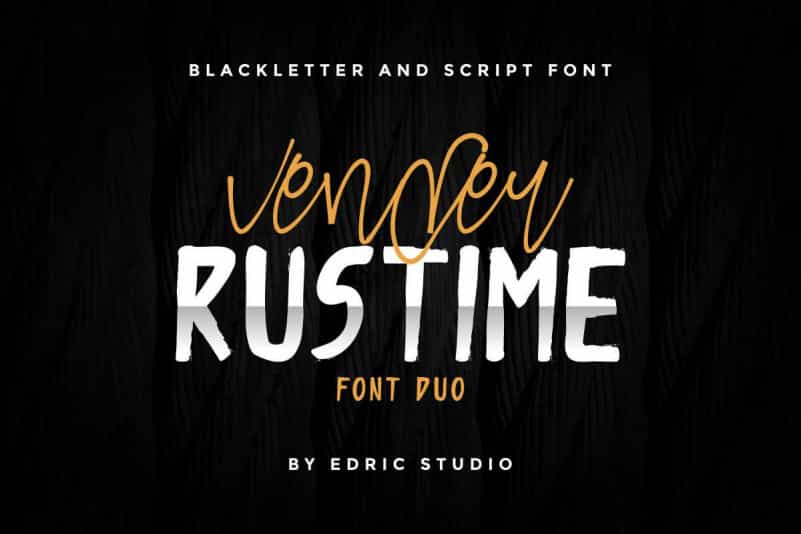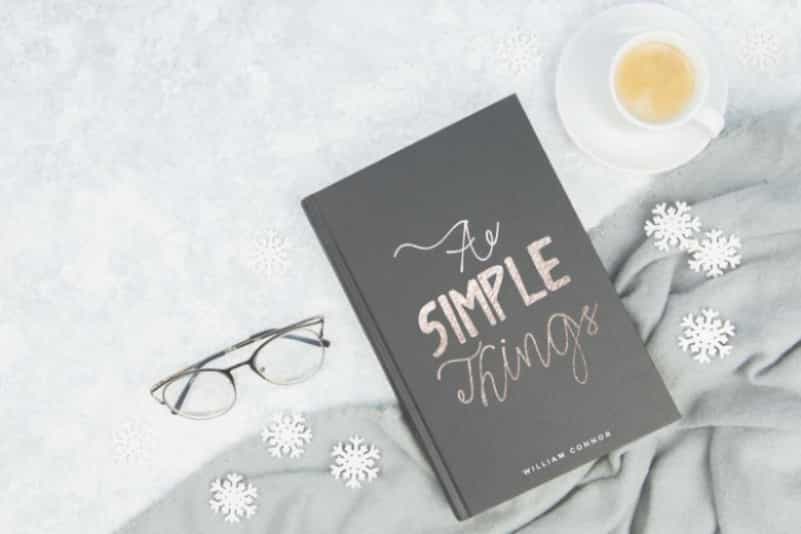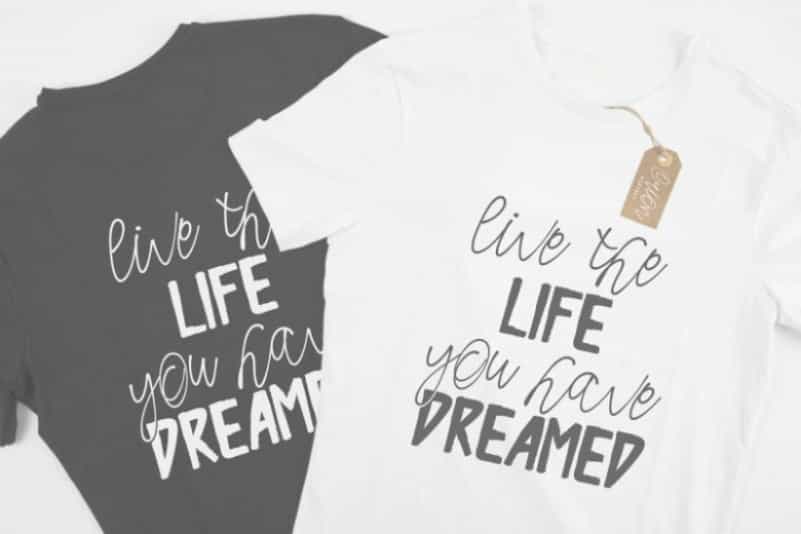
Discover Vender Rustime Font Duo, part of the Handwritten Display collection—a versatile and unique font perfect for adding a personal touch to your projects. Download it for free and enjoy crafting designs with style, from invitations to social media posts. This font is available exclusively for personal use, giving you the freedom to create without limits. Unlock your creativity with Vender Rustime Font Duo today!
Vender Rustime Font Duo has many international languages characters glyphs. This font will suits many projects categories : ( with a license ) the Font, Flyer ,Stationery, Business card, signage, flyers, brochures and so on. Your creativity is the only limit when you use this font.